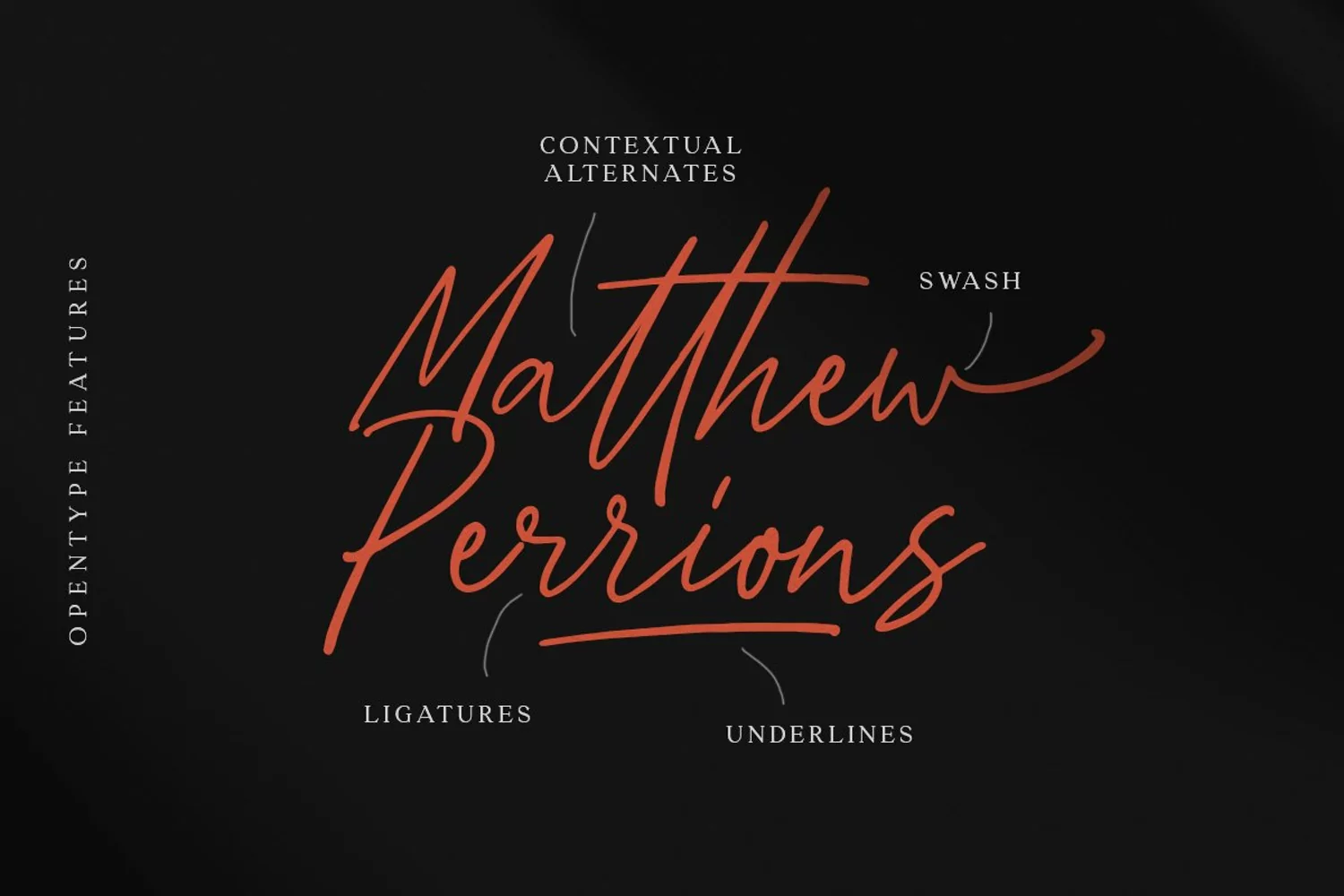
Aesthero Signature is an authentic signature script that contain lowercase, uppercase, symbol, and also support multi language. Comes with ligature, contextual alternates, stylistic alternates, also swash. Aesthero Signature also suitable for logo branding, beautiful fashion design, suitable for wedding invitation, or handwritten quote. Also already PUA Encoded.